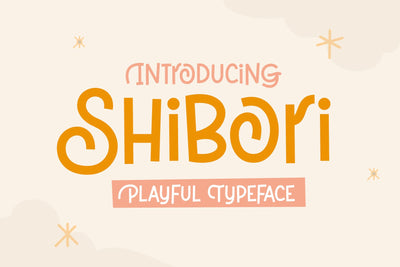
Shibori - Playful Typeface
Meet our new brand font design, Shibori which is designed and created by Dumadistyle.
Shibori is a playful typeface font created for multipurpose creative fun projects. Its fun, cheerful and joyful characteristics are designed for children-friendly product display. Kids storybook cover, youtube for kids thumbnail, the font will surely be sparkling the joy.